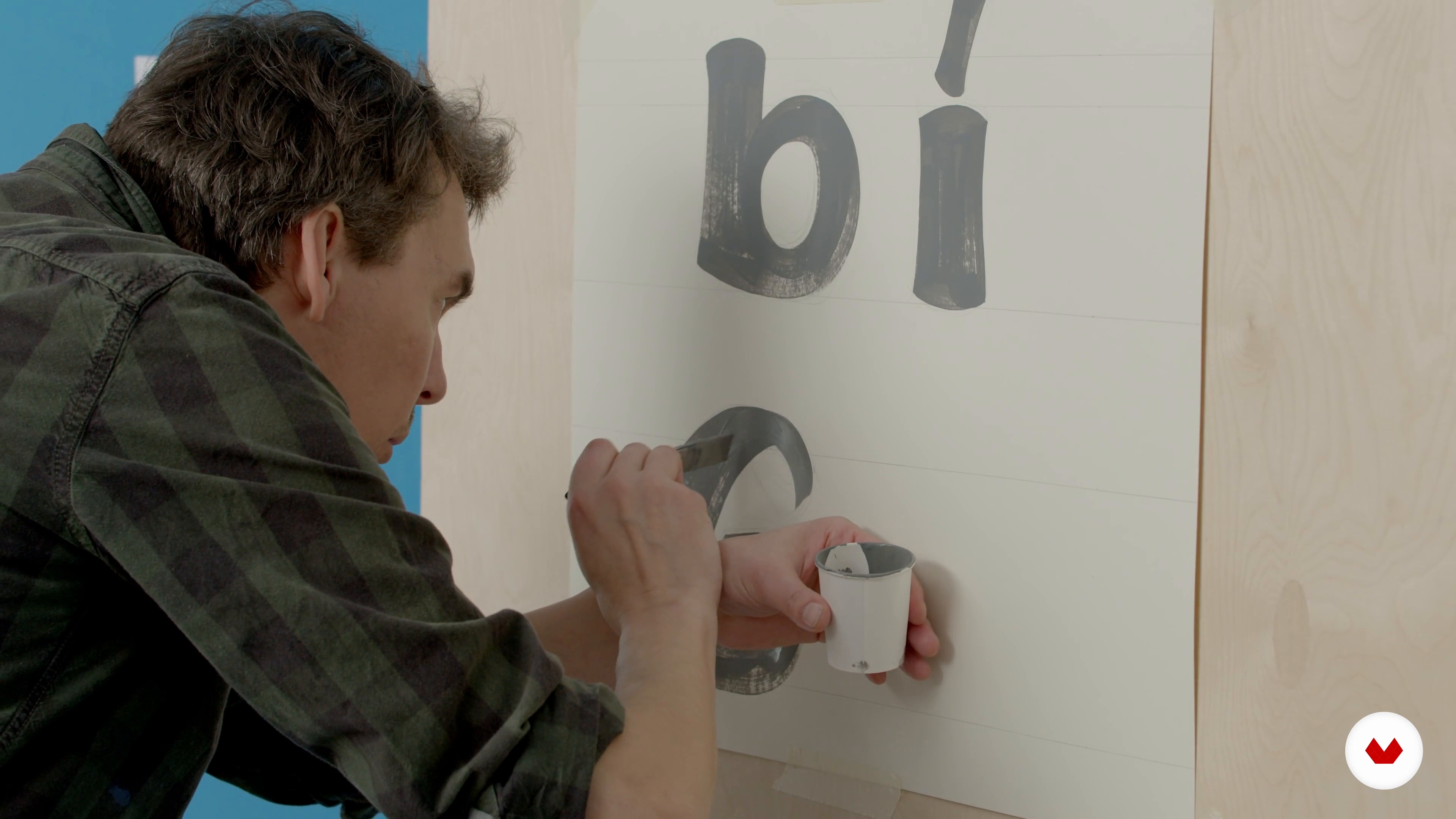
Urban Brush Lettering Technique
Other font styles in the building technique
About the video: Other font styles in the building technique
“We continue with two other selected fonts in the building technique. Here, too, you will learn how to create these font styles from the sketch to the implementation with the brush. ”
In this video lesson Otto Baum addresses the topic: Other font styles in the building technique, which is part of the Domestika online course: Urban Brush Lettering Technique. Discover the secrets of creating stunning urban brush lettering with our comprehensive course. .
“In In this lesson I will go into two other scriptures those with the constructive technique be implemented. With this font I will now briefly go into the characteristics. As you can see, these are all small letters. what you see here is that we have fewer sharp edges, but rather round shapes, elliptical forms that merge into one another. With the F for example here you have this rounding. You should definitely pay attention to this if you fix yourself with the typeface and then sketch them too. Many of these wide swabs are not just rigid boxes, but they have a dynamic in the line. You can s...”